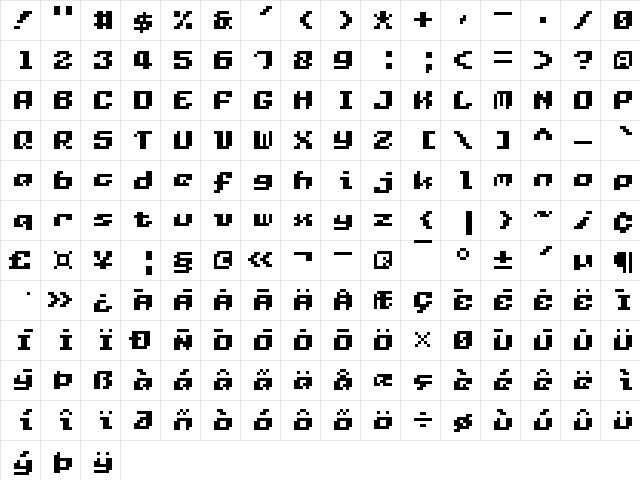
StaxBlox Regular
Design Context for StaxBlox Typeface
StaxBlox takes a measured approach to typography — its balanced proportions and neutral character make it a reliable workhorse for both digital and print work.